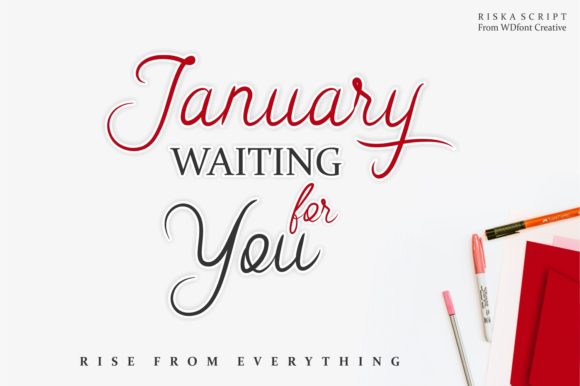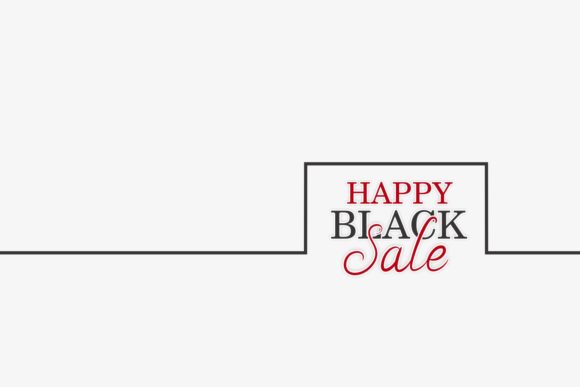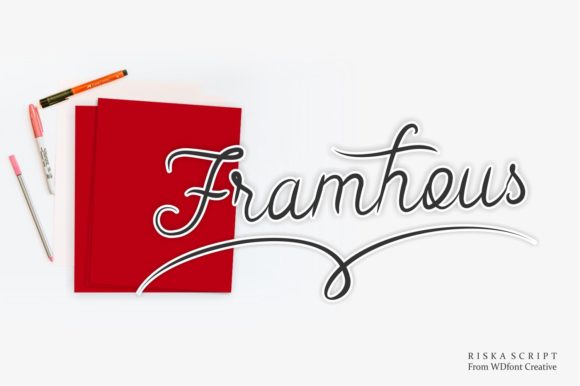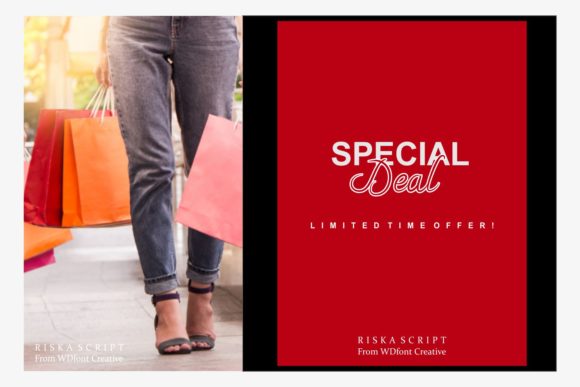
Introduction to Riska Script Font
Have you ever stared at a blank page, pencil in hand, waiting for inspiration to strike? It’s a feeling many creatives know well. For designers, the search for the perfect font can be a crucial moment in bringing a project to life. That’s why we’re excited to introduce you to the Riska Script Font, a high-quality design resource that’s sure to elevate your creative project.
This beautiful script font is designed to add a touch of elegance to any design, whether it’s a product packaging, branding project, or simply a stylish text overlay for a background image. With its smooth, handwritten style, the Riska Script Font is perfect for designers looking to add a sprinkle of sophistication to their work.
Key Features of Riska Script Font
- Riska Script Font is a high-quality design resource ideal for creative projects, offering a unique and elegant touch to any design.
- This script font features a transparent background, allowing for seamless integration into various design elements.
- The font is available in a single size, making it easy to use in a range of creative projects, from invitations to social media graphics.
- Riska Script Font is designed at a high resolution, ensuring crisp and clear text, even when scaled up or down.
- This font’s unique characteristics, including its flowing connections and subtle flourishes, make it perfect for adding a touch of elegance and sophistication to any design.
Honest Review: Riska Script Font
I recently had the chance to work with the Riska Script Font, and I must say it’s a solid addition to any designer’s toolkit. ✨ The high quality of this font makes it perfect for creative projects that require a touch of elegance and sophistication.
- High quality design that’s perfect for creative projects
- Transparent background, making it easy to work with
- May not be suitable for projects that require a bold, sans-serif font
- Some users may find the font to be a bit too ornate
Overall, I was really impressed with the Riska Script Font. It’s a great addition to any designer’s toolkit, and I would definitely recommend it to anyone looking for a high-quality, elegant font.
Tips for Getting the Most Out of Riska Script Font
Riska Script Font is perfect for wedding invitations, birthday cards, and other creative projects that require a touch of sophistication. Its high-quality design makes it a popular design resource among designers and non-designers alike.